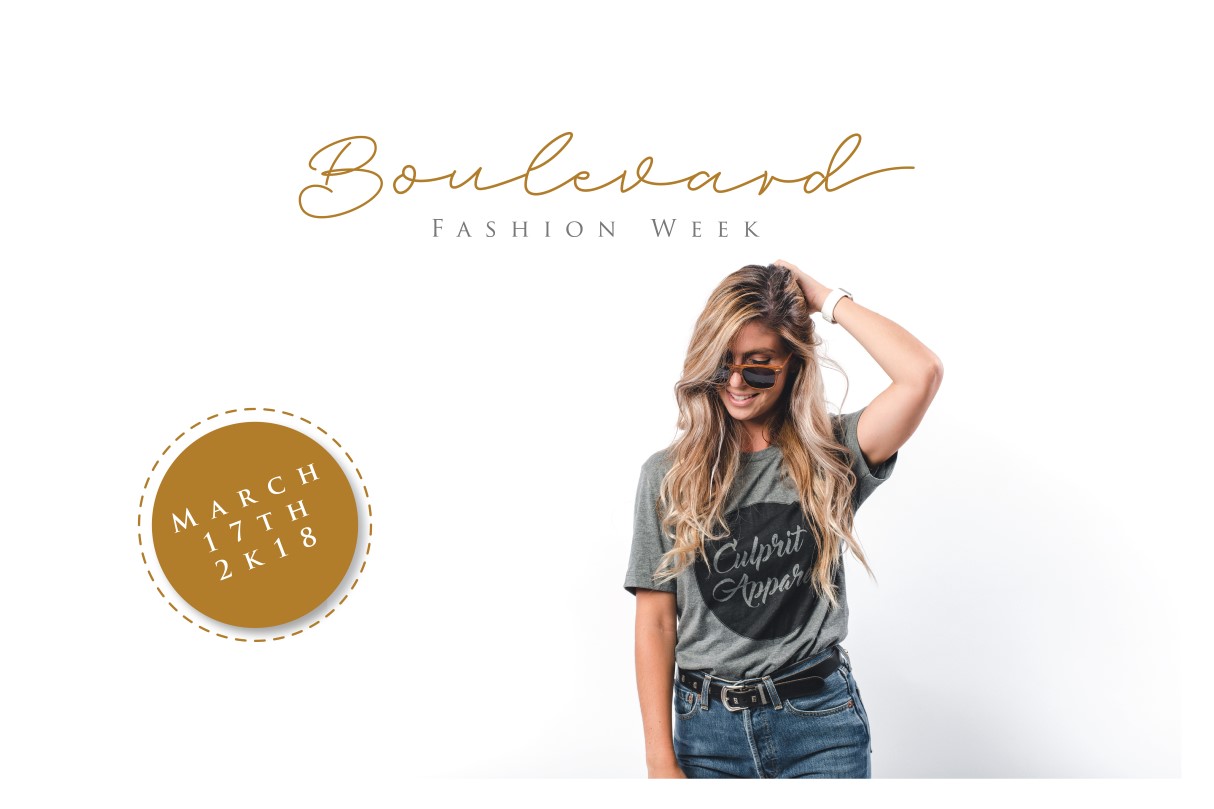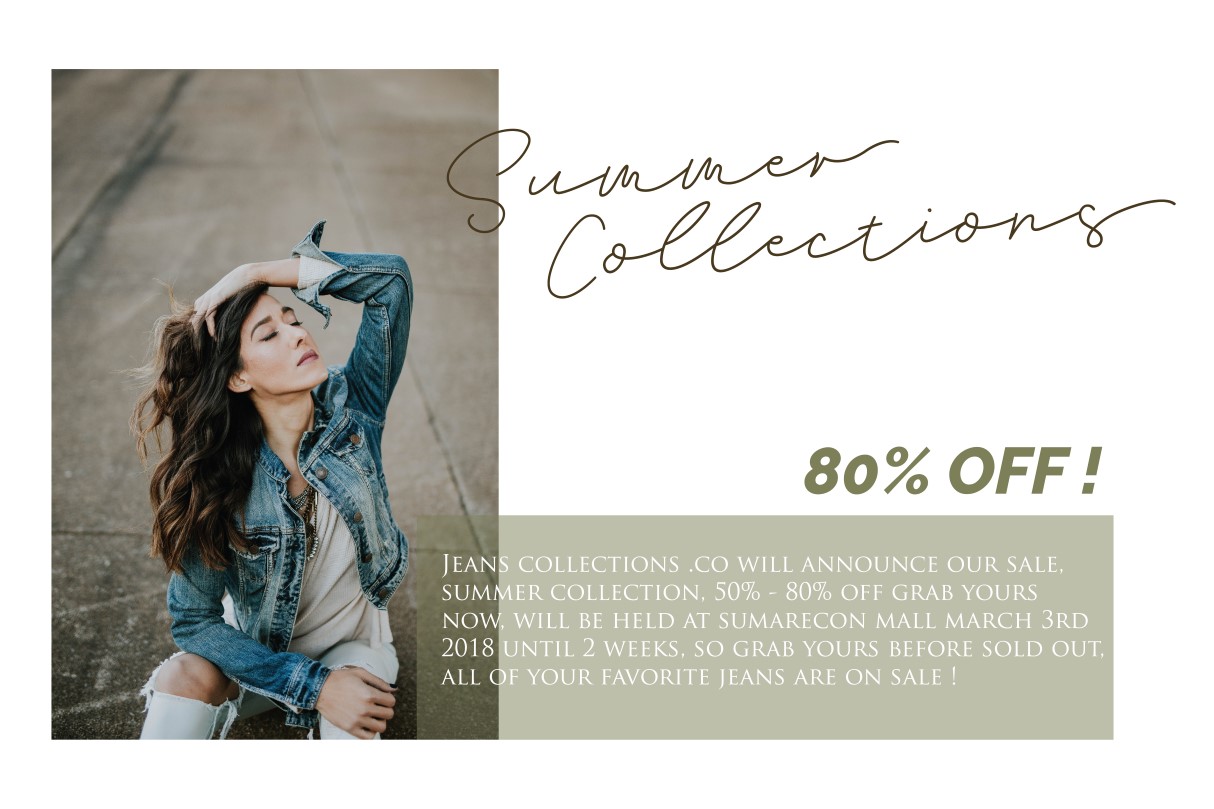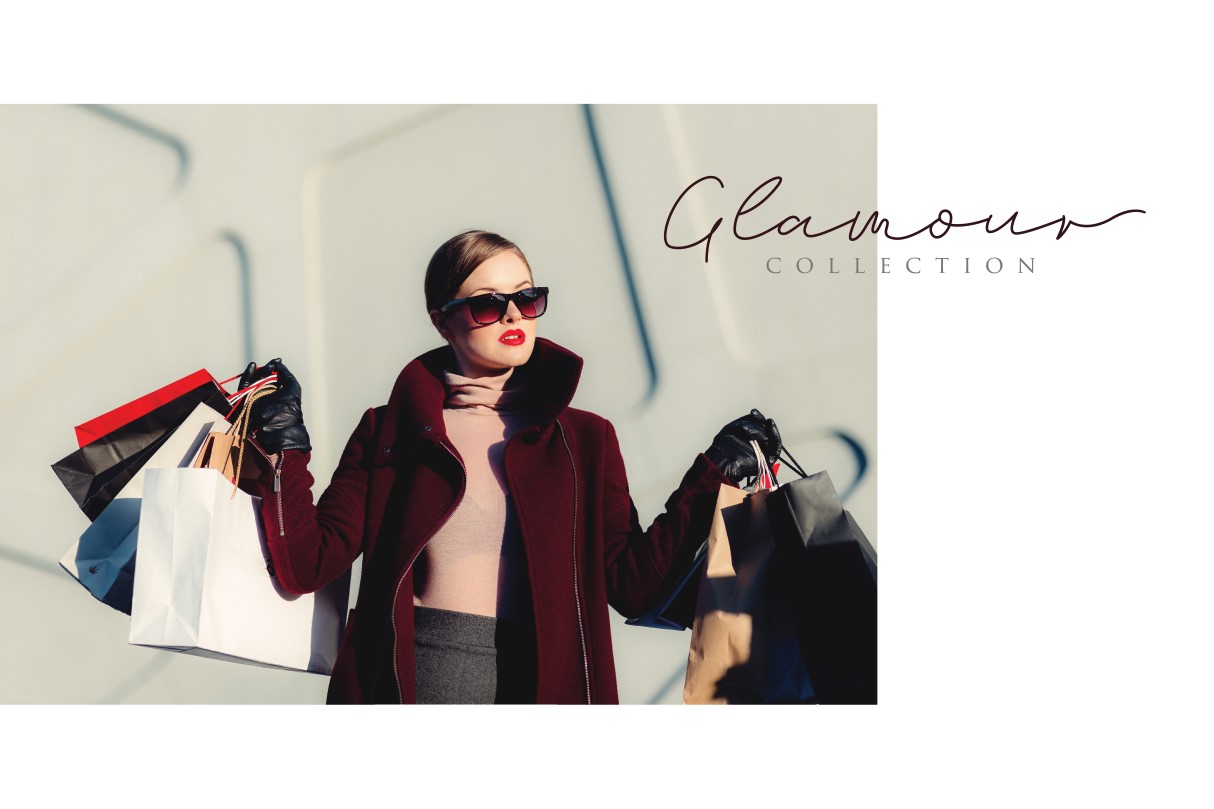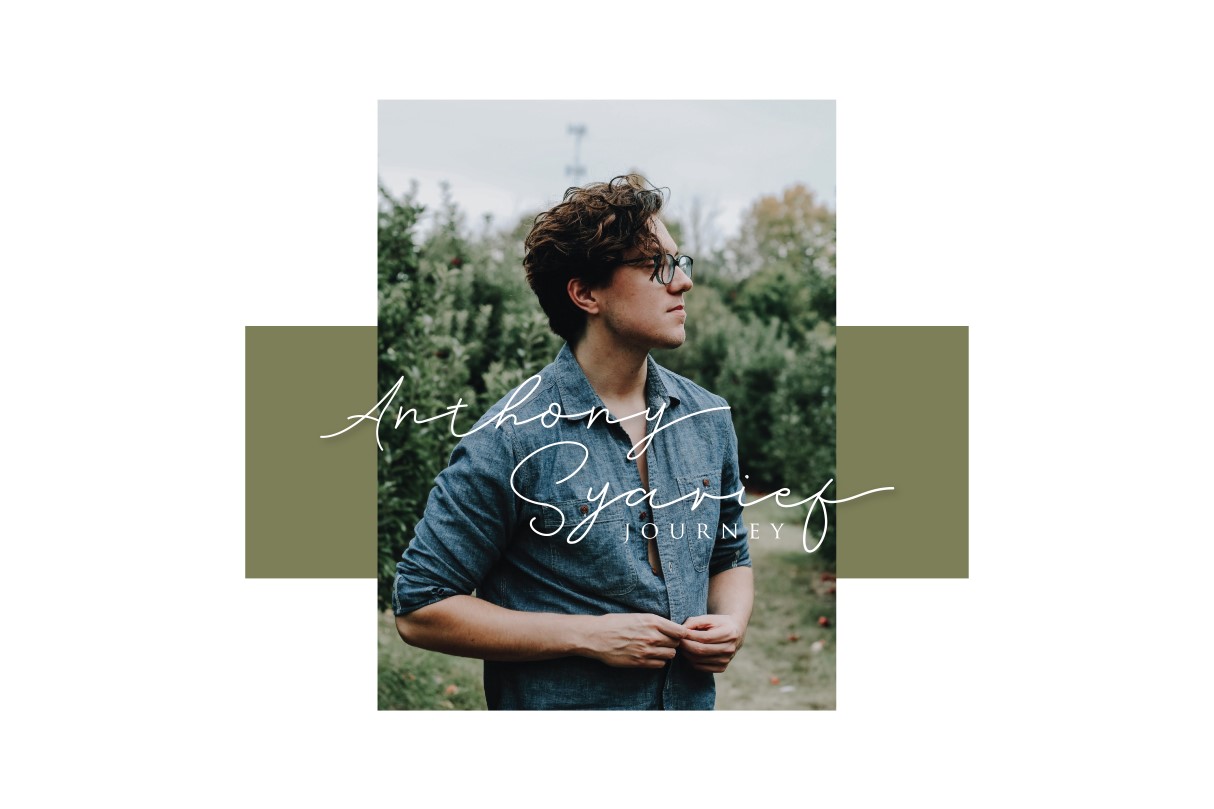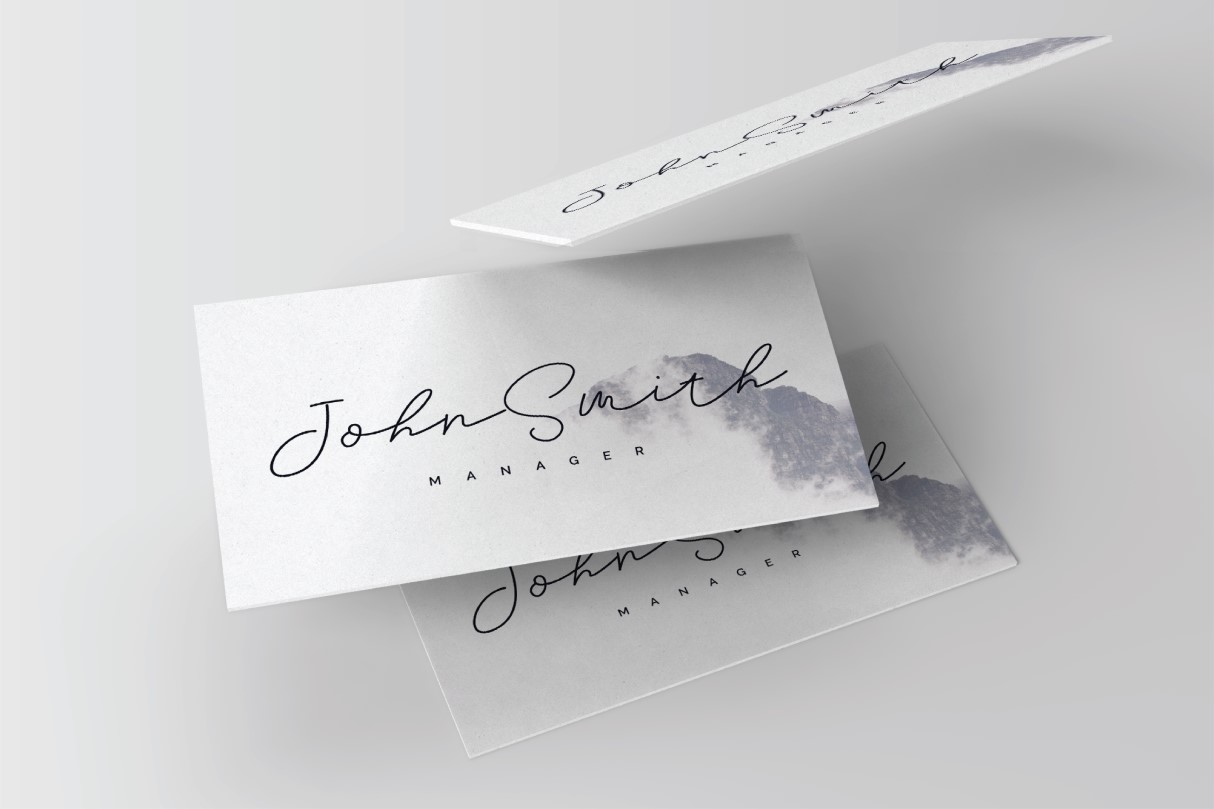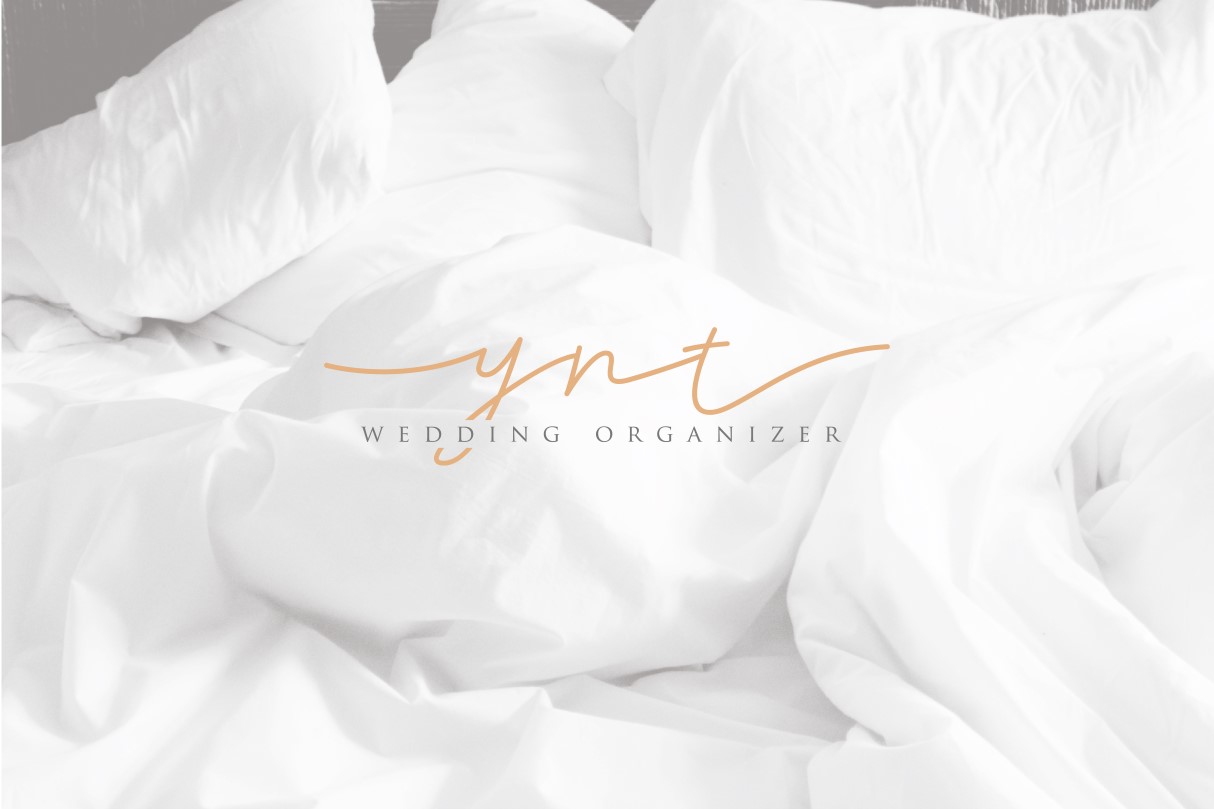
Brian Strait Font: Elevate Your Designs with Elegance and Sophistication
In the world of typography, fonts play a crucial role in making or breaking the visual appeal of a design. For designers and crafters, finding the perfect font that adds a touch of elegance and sophistication to their projects can be a daunting task. However, if you’re looking for a font that embodies simplicity, class, and style, look no further than the Brian Strait Font.
The Brian Strait Font: A Perfect Blend of Elegance and Style
Brian Strait was crafted to make your work look more amazing. This simple and classy font is perfect for adding a signature touch to your creative projects. The font’s design is elegant, classy, and stylish, but most importantly, it’s eye-catching. Whether you’re working on a branding project, a website design, or a craft project, the Brian Strait Font is sure to make your work stand out.
Key Features of the Brian Strait Font
- Simple yet Elegant: The Brian Strait Font boasts a simple yet elegant design that makes it perfect for a wide range of design projects.
- Classy and Stylish: The font’s classy and stylish look makes it ideal for designers and crafters who want to add a touch of sophistication to their work.
- Eye-catching: The font’s unique design makes it eye-catching, ensuring that your work will grab the attention of your audience.
- Versatile: The Brian Strait Font is versatile and can be used for a variety of design projects, including branding, website design, and craft projects.
Why Choose the Brian Strait Font?
With so many fonts available, why choose the Brian Strait Font? Here are a few reasons why this font stands out from the rest:
- Unique Design: The Brian Strait Font has a unique design that sets it apart from other fonts.
- Easy to Read: The font is easy to read, making it perfect for body text and headings.
- High-quality: The font is of high quality, ensuring that it will look great in any design project.
How to Use the Brian Strait Font
Using the Brian Strait Font is easy. Here are a few tips to get you started:
- Pair it with Other Fonts: Pair the Brian Strait Font with other fonts to create a unique and visually appealing design.
- Use it for Headings: Use the font for headings and titles to add a touch of elegance and sophistication to your design.
- Experiment with Colors: Experiment with different colors to find the perfect combination that works with the font.
In conclusion, the Brian Strait Font is a simple yet elegant font that is perfect for designers and crafters who want to add a touch of sophistication to their work. With its unique design, ease of use, and high-quality, this font is sure to become a staple in your design toolkit. Whether you’re working on a branding project, a website design, or a craft project, the Brian Strait Font is sure to make your work stand out.